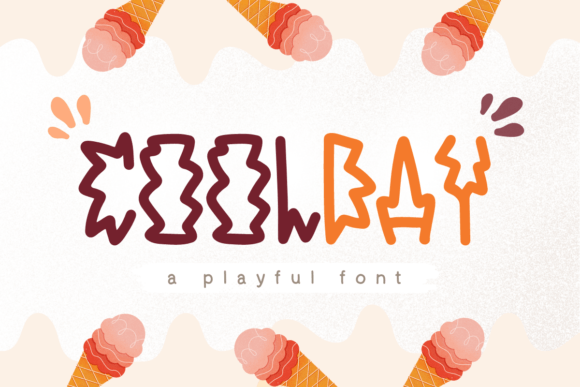
Journey into the world of Cool Day Font, an enchanting display font designed to ignite your creativity and capture hearts. Its playful and inviting nature makes it the perfect choice for adding a touch of whimsy and charm to your projects. Whether you're a seasoned designer or just starting, Cool Day Font is your key to creating remarkable designs that leave a lasting impression.
With its cheerful and bouncy characters, Cool Day Font exudes an aura of positivity and joy, making it an ideal font for projects aimed at children. Create captivating posters for school events, design playful invitations for birthday parties, or craft heartwarming greeting cards that spread smiles. Its unique style adds a personal touch to any design, making it perfect for teachers, crafters, and anyone looking to add a dash of fun to their projects.
Beyond its playful nature, Cool Day Font also possesses an undeniable elegance that makes it suitable for a wide range of design endeavors. Its clean lines and well-balanced letterforms lend a touch of sophistication to wedding invitations, branding materials, and social media graphics. Whether you're creating marketing materials for your business or designing personal projects, Cool Day Font adds a touch of refinement and charm that elevates your designs.
But Cool Day Font's versatility doesn't end there. Its adaptability extends to various digital and print applications, making it a versatile choice for both personal and professional projects. Create eye-catching logos and branding elements that leave a lasting impression, or use it to craft stunning headlines and body text that captivates readers. Cool Day Font effortlessly adapts to your design needs, ensuring that your message is conveyed with clarity and style.
As a creation of Khim08Studio, Cool Day Font is a testament to the studio's dedication to crafting fonts that inspire and empower designers. Their passion for typography shines through in every curve and stroke of this playful font, ensuring that it becomes a beloved addition to your font collection.
Embrace the magic of Cool Day Font and embark on a creative journey filled with joy, elegance, and endless possibilities. Let your imagination soar as you create designs that capture hearts and leave a lasting impression.